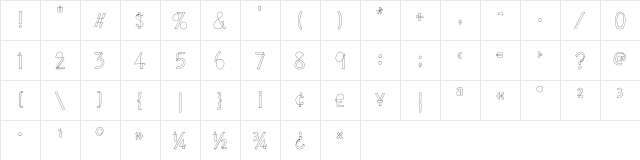
Eames Numerals Cover Regular Font Preview
Eames Numerals Cover Regular
Eames Numerals Cover Regular Font Details
| Foundry | House Industries |
| Designer | Ken Barber based on lettering by Ray Eames |
Design Context for Eames Numerals Cover Typeface
Eames Numerals Cover is a composed and adaptable typeface that performs quietly and consistently across a wide range of design contexts.